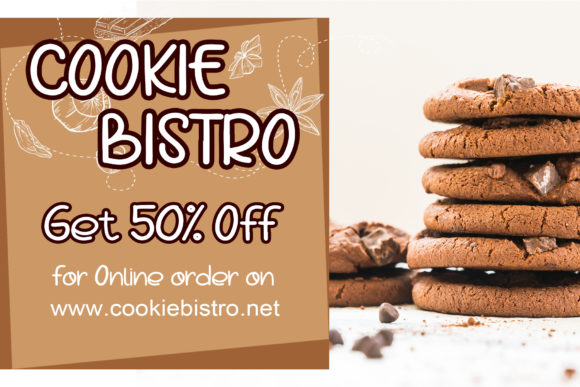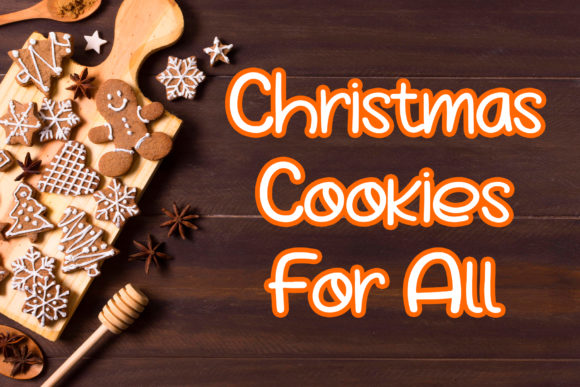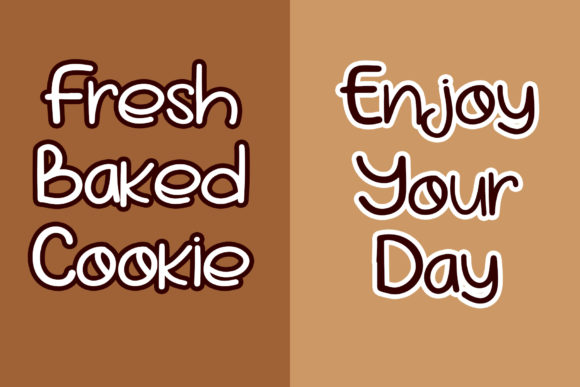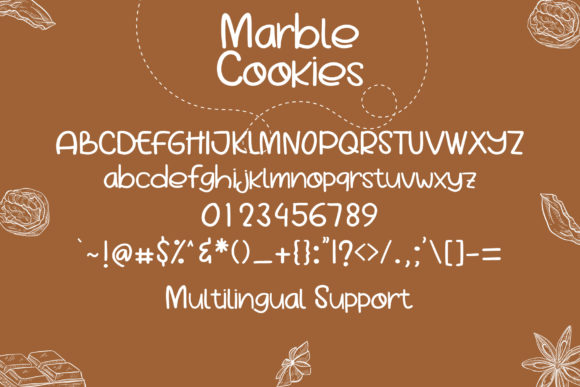
Introduction to Marble Cookies Font
As a designer, have you ever stared at a blank page, searching for the perfect font to bring your creative project to life? You know the feeling – the one where you’ve got a clear vision, but the right words just aren’t quite hitting the mark. For me, that moment came when I stumbled upon the Marble Cookies Font, a beautiful and unique handwritten font that instantly elevated my design.
With its high-quality, handcrafted feel, the Marble Cookies Font is the perfect design resource for any creative project – from Christmas cards to seasonal marketing materials. And the best part? It’s available for free download, making it a valuable addition to any designer’s toolkit. Whether you’re a seasoned pro or just starting out, this lovely font is sure to bring a touch of magic to your designs.
Key Features of Marble Cookies Font
- High-quality, vector-based design for a crisp and clear appearance.
- Perfect for creative projects, including baking and cooking websites, social media, and advertising materials.
- Unique, hand-drawn design elements that add a personal touch to any design project.
Honest Review: Marble Cookies Font
As a designer, I’m always on the lookout for unique and high-quality design resources to elevate my creative projects. The Marble Cookies Font is one such find that caught my eye.
What works well with this font is its playful and whimsical feel. The bold and cursive strokes make it perfect for adding a touch of elegance to designs that require a bit of personality. The font also comes in a free download, which is always a bonus!
- ✨ High-quality design: The font’s crisp lines and smooth curves give it a professional feel.
However, there are a few limitations to consider. The font may not be suitable for all types of designs, particularly those that require a more formal tone. Additionally, some users may find the font’s style too busy or overwhelming.
Overall, the Marble Cookies Font is a great addition to any designer’s toolkit. While it may have its limitations, its unique style and high-quality design make it a great choice for creative projects that require a bit of flair.
The Marble Cookies Font is perfect for creating graphics for social media posts, blog headers, and website titles. It’s also great for creating presentation titles, headings, and labels. With its high quality and transparent background feature, this font is a must-have design resource for any creative project.